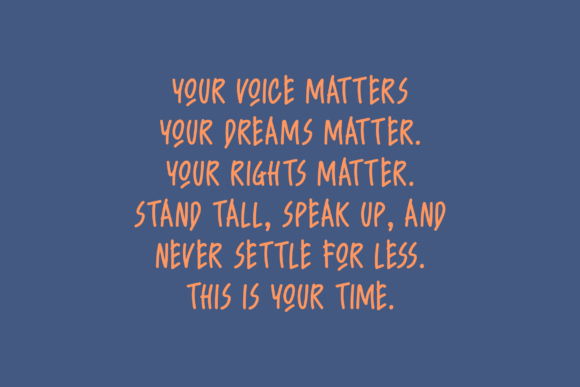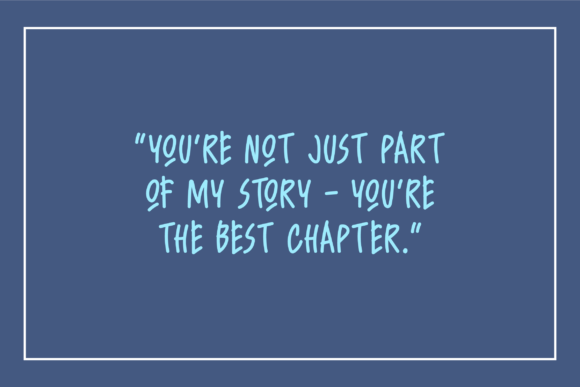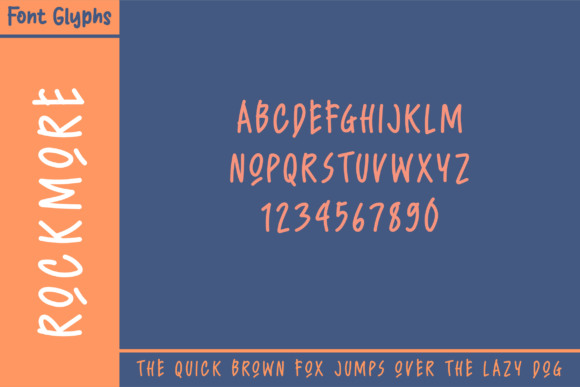
Introduction to Rockmore Font
Have you ever stumbled upon a design that makes you feel like you’re reading a handwritten letter from a close friend? That’s the magic of the Rockmore Font. As designers, we’re always on the lookout for fonts that bring a touch of personality to our creative projects, and this one certainly delivers.
Imagine you’re working on a branding project for a small business, and you want to convey a sense of approachability and warmth. The Rockmore Font is the perfect design resource to achieve that. Its unique, handwritten style is both bold and charming, making it an ideal choice for packaging, social media, and print materials. And the best part? It’s a high-quality font that’s available for free download, allowing you to bring your creative vision to life without breaking the bank.
Key Features of Rockmore Font
- Rockmore Font is available in a single weight, with a unique and distinctive design that sets it apart from other fonts in its class.
- Suitable for a variety of creative projects, including logos, branding, and typography-based art, due to its modern and elegant design aesthetic.
Honest Review: Rockmore Font
As a designer, I’m always on the lookout for unique and high-quality design resources to elevate my creative projects. The Rockmore Font has caught my attention, and I’m excited to share my honest review.
- Unique design style: The Rockmore Font boasts a distinct, hand-drawn aesthetic that sets it apart from other fonts.
- High quality: The font is well-crafted, with crisp lines and a transparent background that ensures seamless integration into any design.
- Limited character set: While the font is well-suited for headings and titles, its limited character set may not be ideal for extensive body text.
- Not suitable for all designs: The Rockmore Font’s unique style may not be the best fit for all creative projects, particularly those requiring a more formal or traditional look.
Overall, I’m impressed with the Rockmore Font’s potential to add a touch of creativity to my designs. While it may have some limitations, its unique design style and high quality make it a valuable addition to any design resource library.
The Rockmore Font is ideal for creative projects, such as brochures, posters, and business cards. It’s also suitable for presentations, documents, and websites. With its unique design and high-quality features, it’s a valuable design resource for any project.